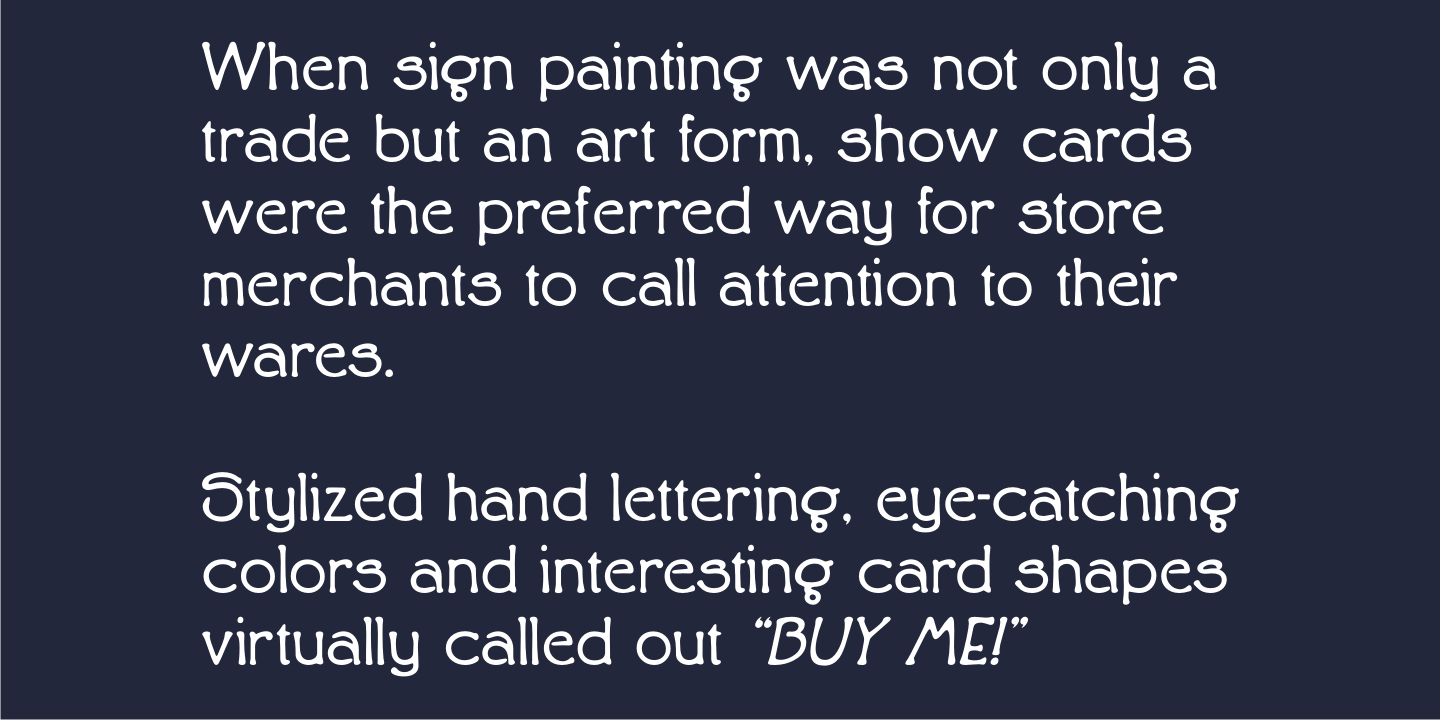
Antique Show Card
The very first Speedball® Lettering Book was published in 1915, and within its pages was a rough-hewn example of lettering with the name 'Rapid Sho-Card Style”.
The design is now available as Antique Show Card JNL, in both regular and oblique versions.
Antique Show Card JNL Regular by Jeff Levine Fonts